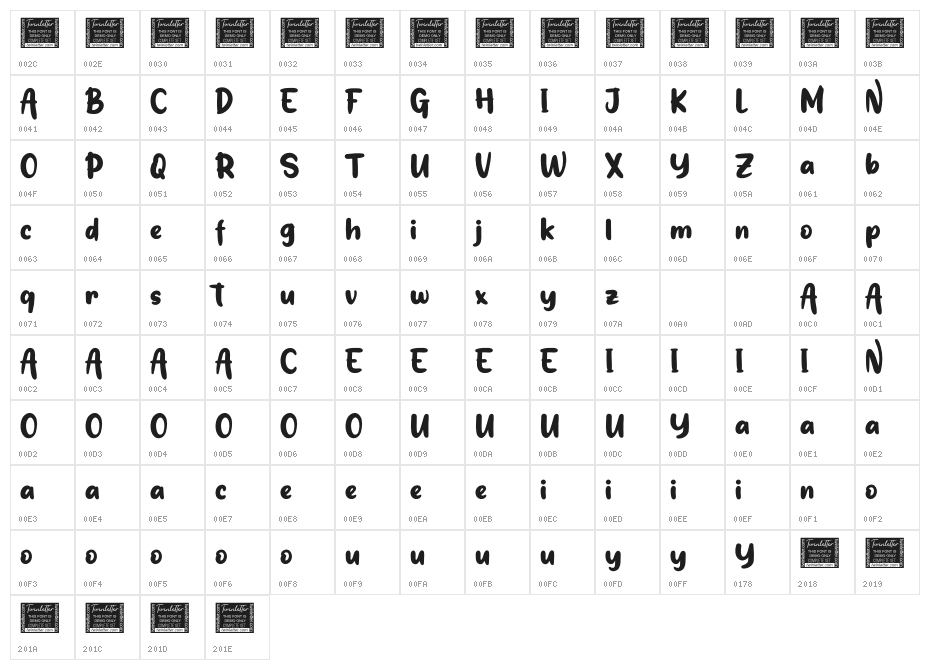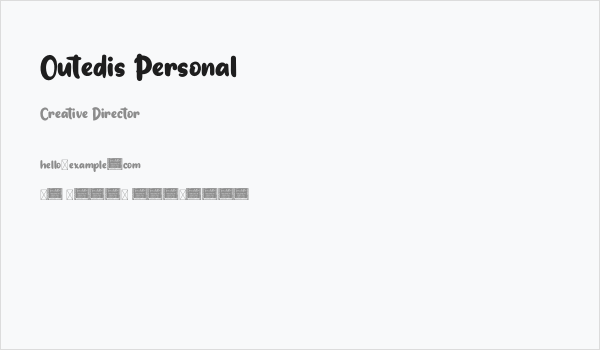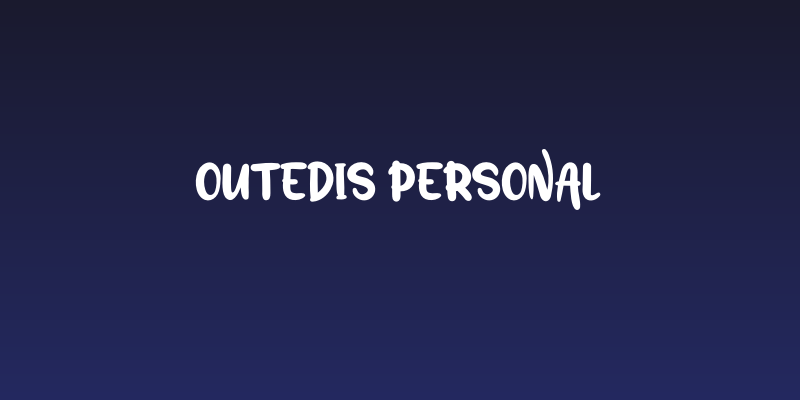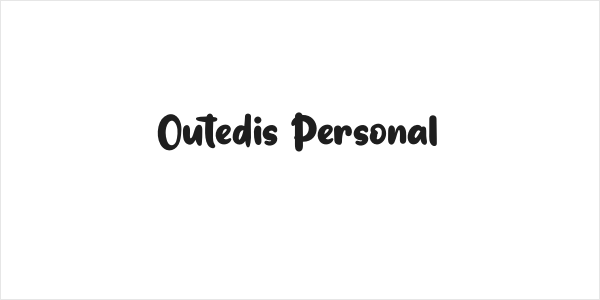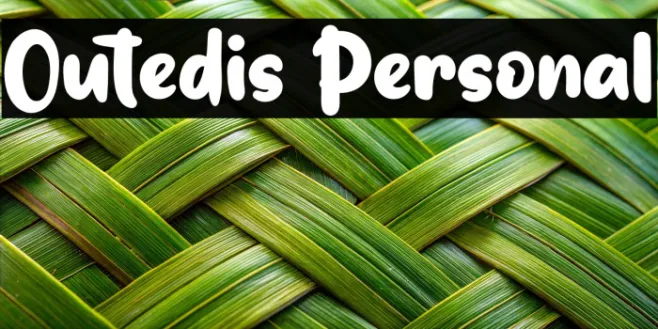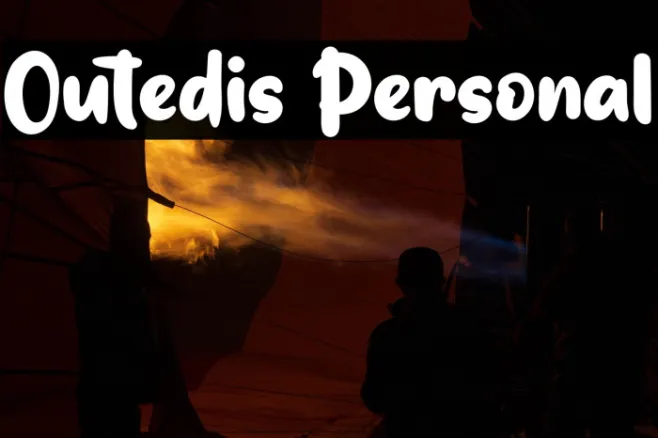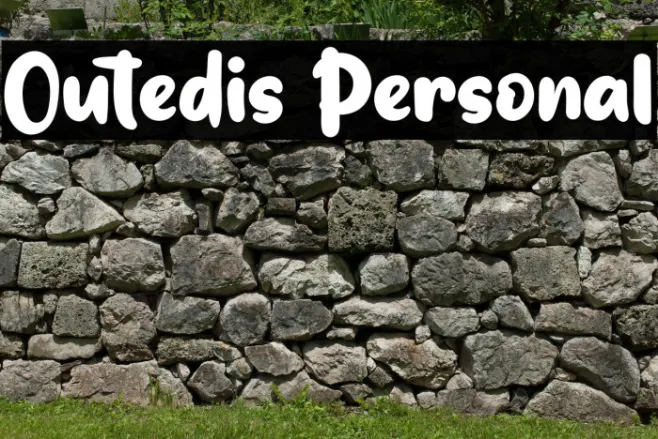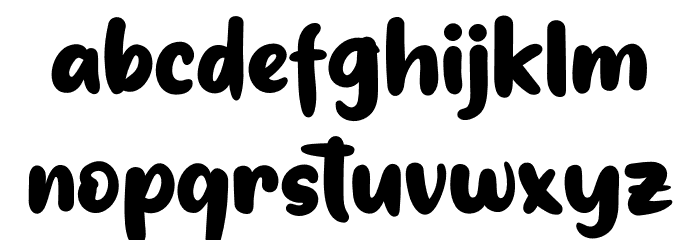
Outedis Personal Font
Outedis Personal Description
This font features a bold, playful script style with a handwritten appearance. The characters are rounded and slightly irregular, giving it a casual and friendly look. The uppercase letters are bold and prominent, while the lowercase letters maintain a consistent flow with smooth curves. The font's overall appearance is lively and energetic, making it suitable for creative and informal designs. It lacks special characters, focusing on a straightforward alphabet presentation.
| Use Case | Logos, Headlines, Informal text |
| Proposed Projects | Ideal for greeting cards, playful branding, children's books, and casual invitations. |